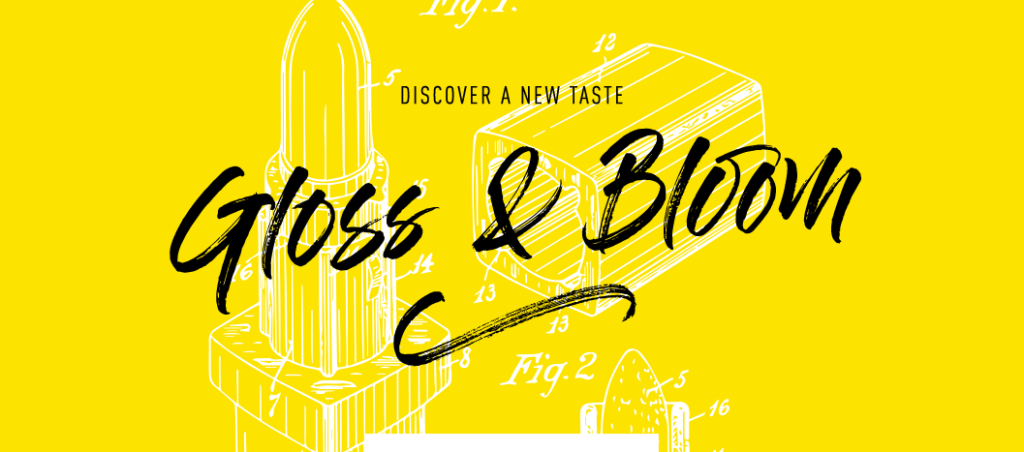
The commercial also has an extended set of automatic alternative glyphes and contextual ligatures as well as under linings , splatters and Splatters to enable creation. This is a script & Brush Font.